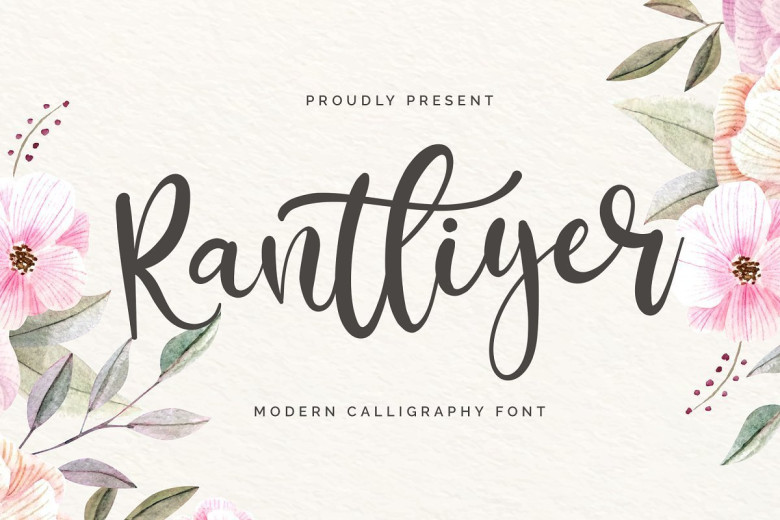
Rantliyer Calligraphy Script Font
Introducing Rantliyer – Modern Calligraphy Script Font, Rantliyer is an exquisite handwritten font, masterfully designed to become a true favorite. It maintains its classy calligraphic influences while feeling contemporary and fresh. Fall in love with it and bring your projects to the highest levels!
This font is best used for logo & branding, wedding invitation, product packaging, signature, diy, decoration, label, photography, and everything that needs a creative touch. This font is free for PERSONAL USE. Link to purchase full version and commercial license: HERE